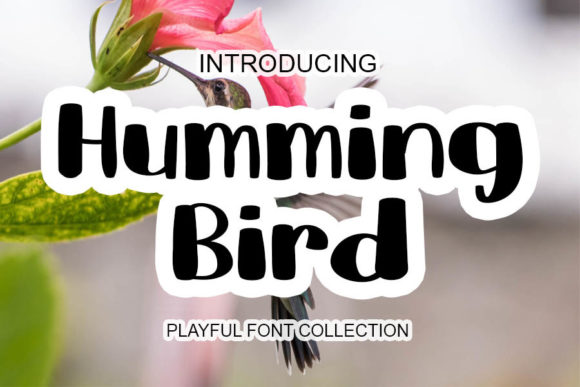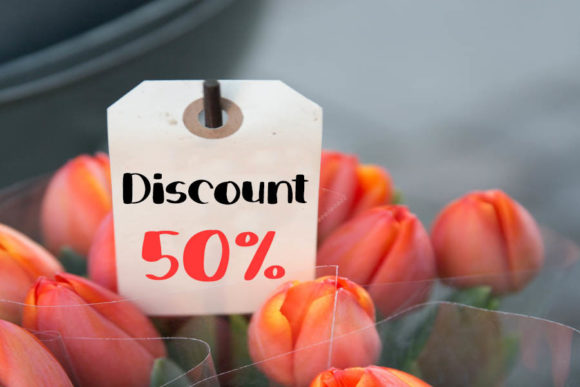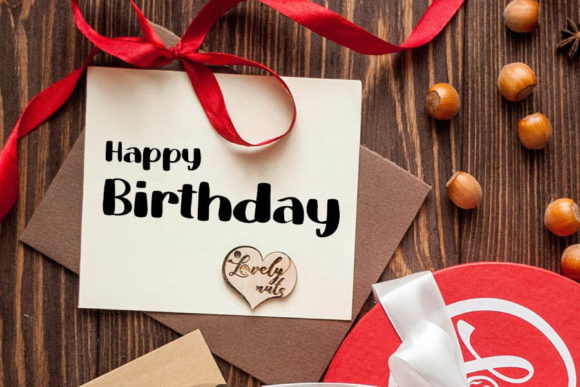
About Humming Bird Font
Humming Bird is a charming and playful handwritten font that adds a touch of whimsy to your designs. With its natural and unique style, this font is a versatile choice for a wide range of design projects.
The Humming Bird font captures the essence of playfulness and creativity. Each letter is crafted with a free-flowing and organic feel, giving your designs a hand-drawn and authentic touch. The irregular shapes and varying letter heights create a dynamic and lively appearance.
This font is a perfect fit for projects that call for a light-hearted and fun atmosphere. Whether you’re creating greeting cards, invitations, logos, or social media posts, Humming Bird brings a sense of joy and positivity to your designs.
The natural and unique style of Humming Bird allows it to adapt to various themes and concepts. It can be used in children’s book illustrations, party decorations, craft projects, and more. Its versatility makes it suitable for both digital and print applications.
One of the strengths of Humming Bird is its ability to evoke a sense of imagination and freedom. Its handwritten appearance adds a personal and relatable touch to your designs, making them feel more authentic and engaging to your audience.
With Humming Bird, there are no limits to what you can create. Let your imagination run wild and explore the playful possibilities this font offers. Experiment with different colors, sizes, and arrangements to bring your designs to life.
In summary, Humming Bird is a playful handwritten font that adds a touch of whimsy and creativity to your designs. Its natural and unique style makes it a versatile choice for various projects, allowing you to unleash your imagination and create engaging and lighthearted designs. Whether you’re designing greeting cards, invitations, or logos, Humming Bird will bring a sense of joy and playfulness to your work.